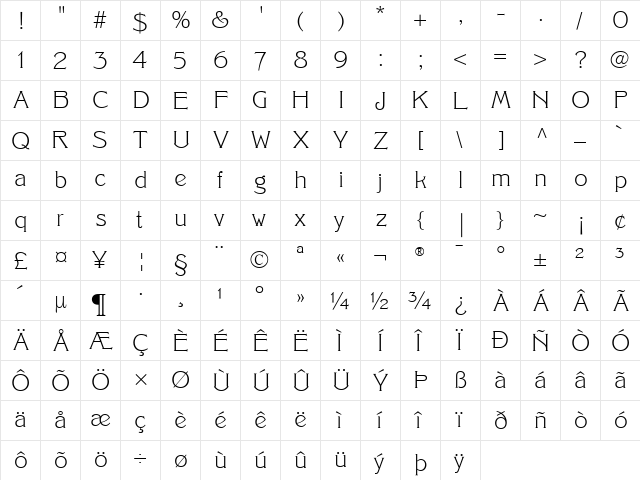
Grafiko Regular
Design Context for Grafiko Typeface
Grafiko offers clean, dependable letterforms without strong stylistic allegiance, making it a practical choice for designers who need flexibility.
Pro Tip: Use Grafiko in both headline and body roles to test its range before committing to a single application.